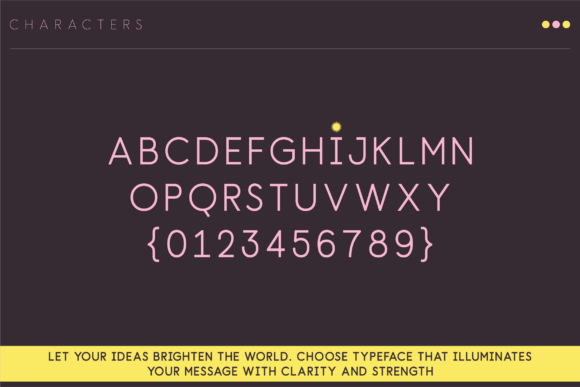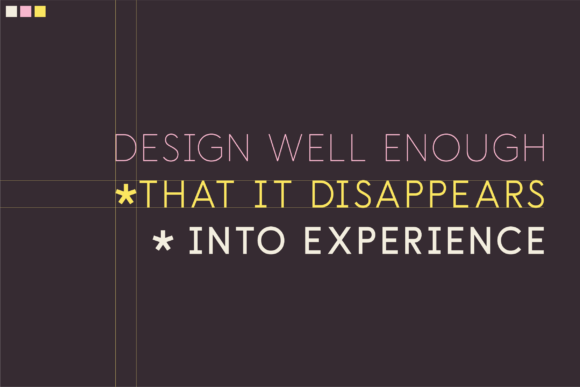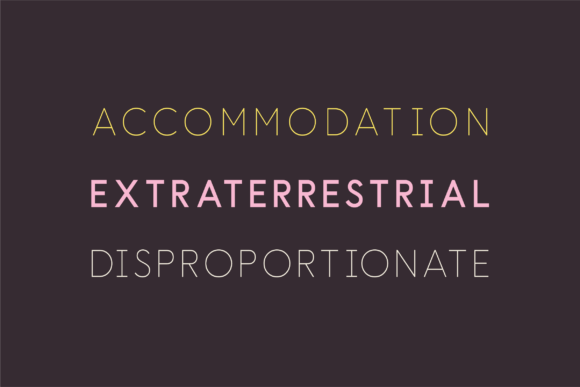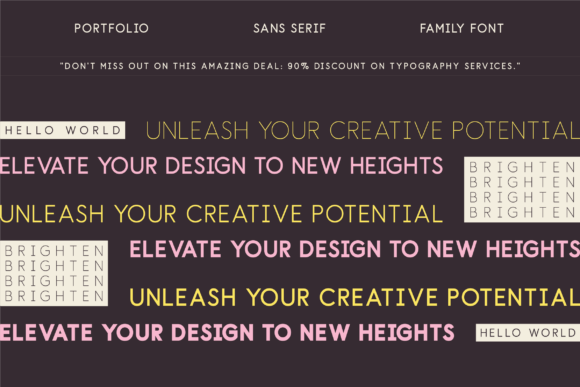
Introducing Brighten Font: Elevating Design with Precision and Intention
In the world of typography, font choices can make or break a design. A well-crafted typeface can elevate the clarity, beauty, and impact of a project, while a poorly chosen one can detract from it. This is where Brighten Font comes in – a modern sans serif font family that is not just a typeface, but a design decision. Built with precision and intention, Brighten is designed to bring balance, proportion, and rhythm to your designs, making it a timeless and distinctly contemporary choice.
The Story Behind Brighten Font
Brighten Font is the result of meticulous craftsmanship and attention to detail. Each letterform was carefully drawn with a deep respect for balance, proportion, and rhythm, ensuring that the typeface feels both classic and modern. The font family is designed to be versatile, making it suitable for a wide range of applications, from digital interfaces to print materials.
Key Features of Brighten Font
- Modern Sans Serif Design: Brighten Font boasts a clean and minimalist aesthetic, making it perfect for designs that require a contemporary look and feel.
- Precision Craftsmanship: Every letterform was carefully crafted to ensure precision and attention to detail, resulting in a typeface that is both beautiful and functional.
- Balance and Proportion: Brighten Font is designed to bring balance and proportion to your designs, making it easy to read and visually appealing.
- Timeless and Contemporary: The font family has a timeless quality that ensures it will remain relevant for years to come, while also feeling distinctly contemporary.
Why Choose Brighten Font?
With so many font options available, why choose Brighten Font? Here are just a few reasons:
- Elevate Your Design: Brighten Font is designed to elevate the clarity, beauty, and impact of your designs, making it perfect for projects that require a professional look and feel.
- Versatility: The font family is suitable for a wide range of applications, from digital interfaces to print materials, making it a great addition to any designer’s toolkit.
- Easy to Read: Brighten Font is designed to be easy to read, making it perfect for body text, headings, and titles.
Using Brighten Font in Your Designs
Brighten Font is easy to use and can be incorporated into your designs in a variety of ways:
- Digital Interfaces: Use Brighten Font in your digital interfaces, such as websites, apps, and social media graphics.
- Print Materials: Brighten Font is perfect for print materials, such as brochures, flyers, and business cards.
- Headings and Titles: Use Brighten Font for headings and titles to add a touch of elegance and sophistication to your designs.
Brighten Font is more than just a typeface – it’s a design decision. With its precision craftsmanship, balance, proportion, and rhythm, Brighten Font is the perfect choice for designers and crafters looking to elevate their designs. Whether you’re working on a digital interface or print material, Brighten Font is sure to bring clarity, beauty, and impact to your projects.